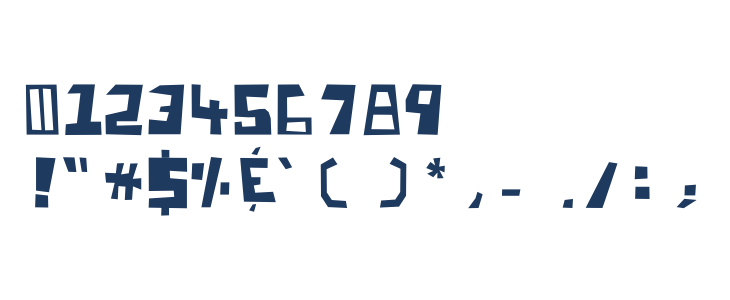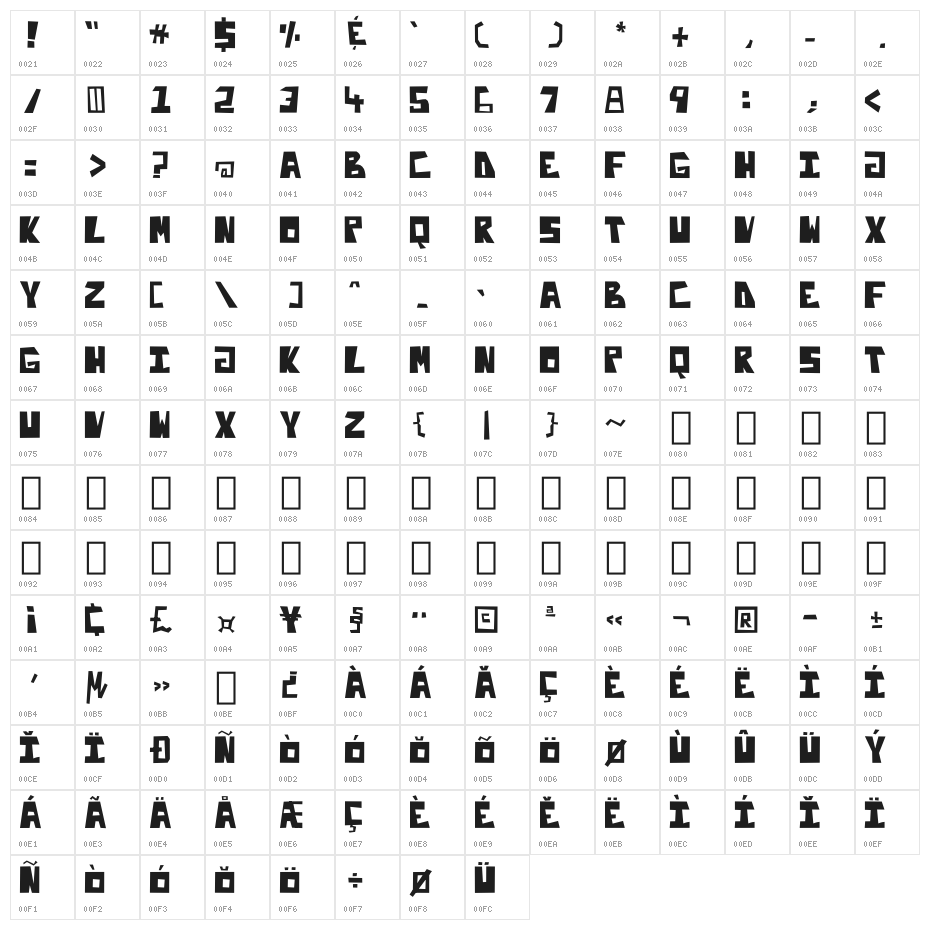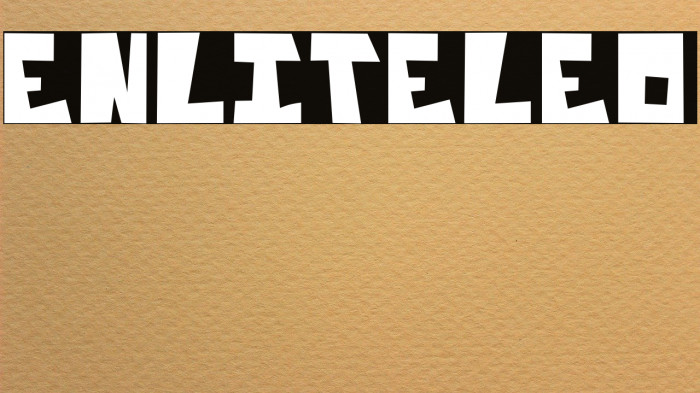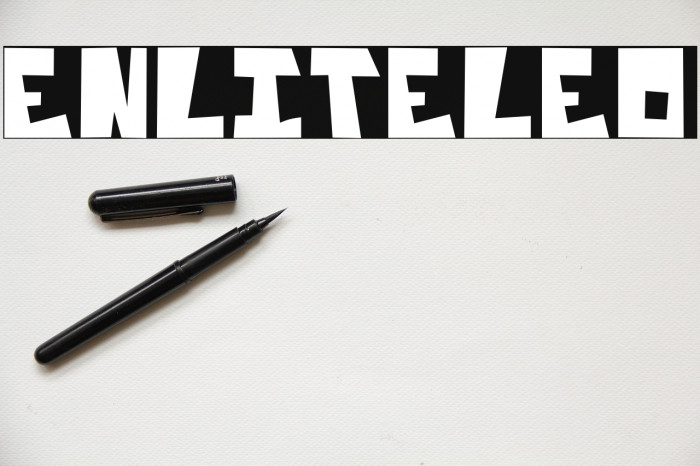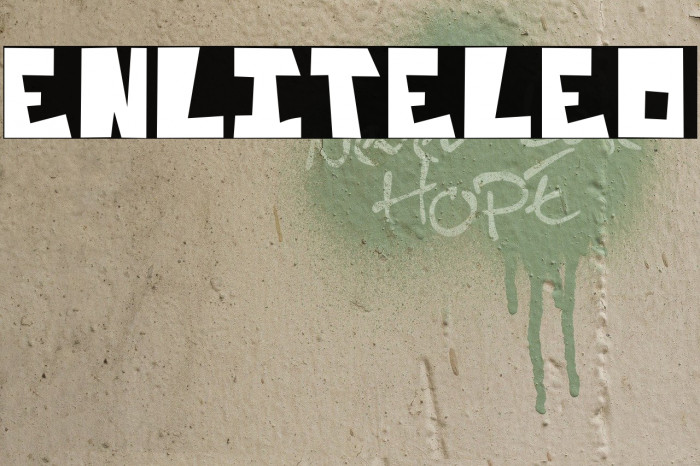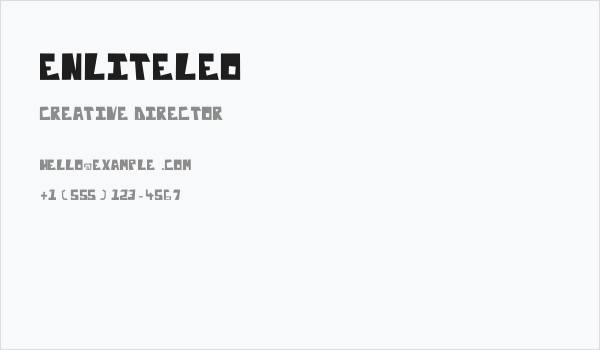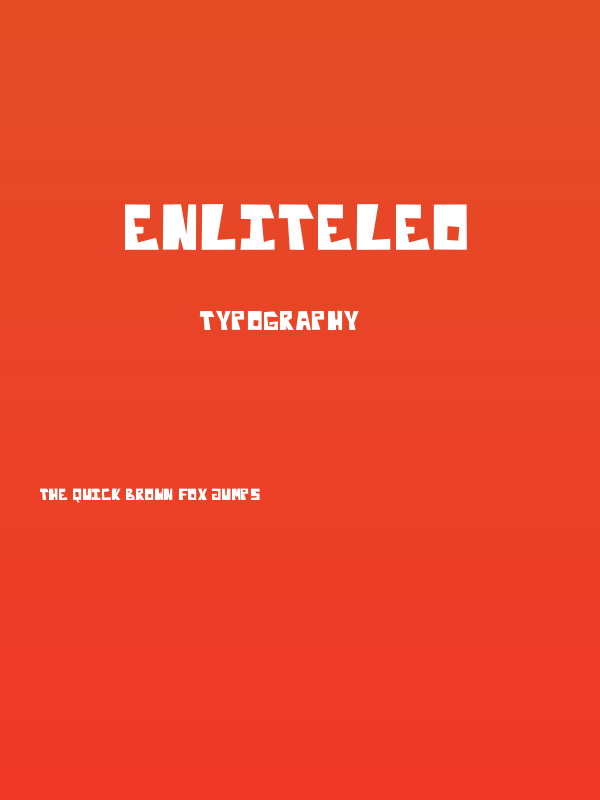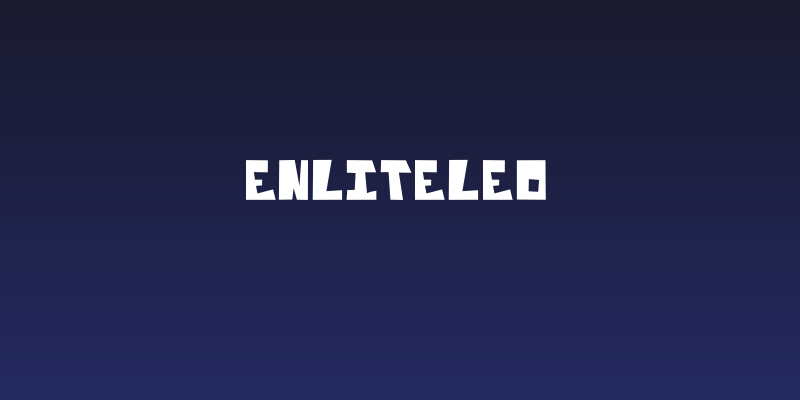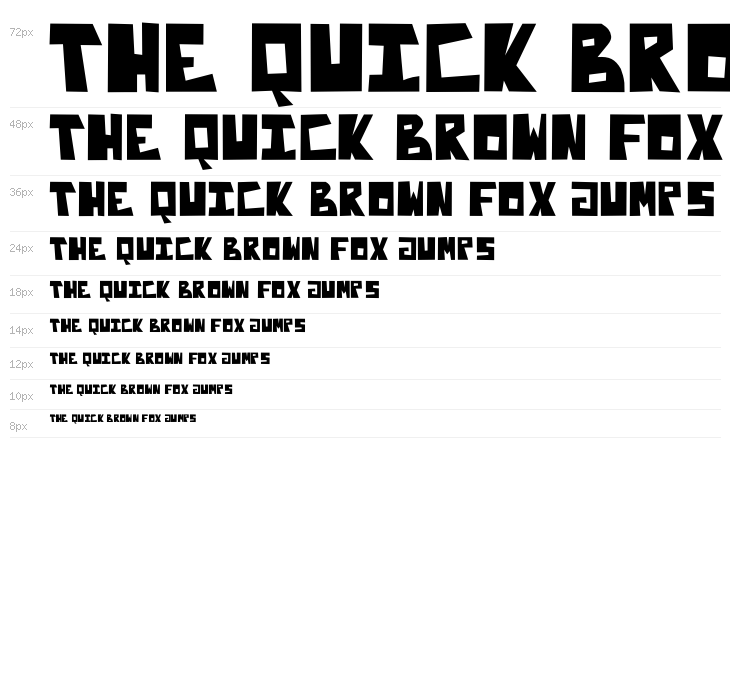
Enliteleo Font
Enliteleo Description
This font features a bold and striking design with angular, geometric shapes that give it a distinct, edgy appearance. The characters are crafted with sharp edges and a blocky structure, creating a sense of movement and energy. The uppercase and lowercase letters maintain a consistent style, with the uppercase being more pronounced. The numbers and special characters follow the same design principles, ensuring uniformity across the entire set. The font's unique style makes it stand out, making it ideal for projects that require a strong visual impact.
| Overall Style | Modern, Edgy |
| Proposed Projects | Ideal for posters, album covers, video game titles, and branding that requires a bold statement. |